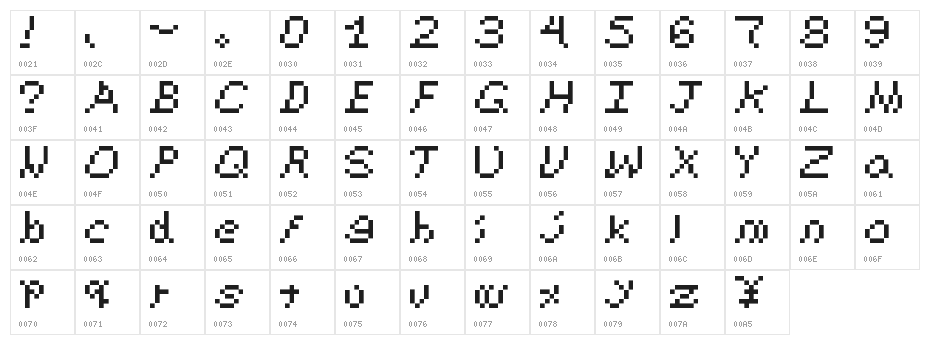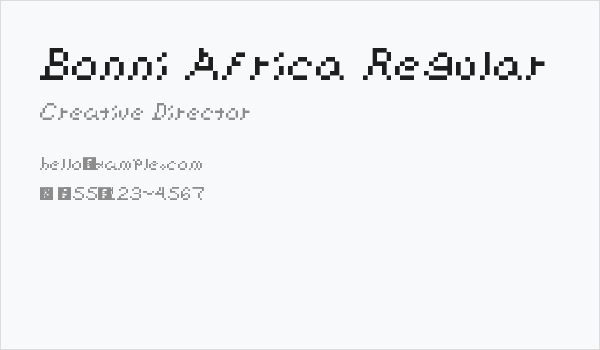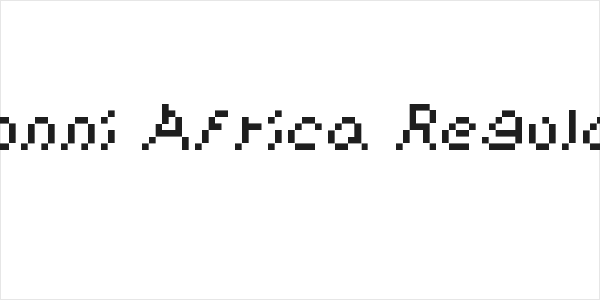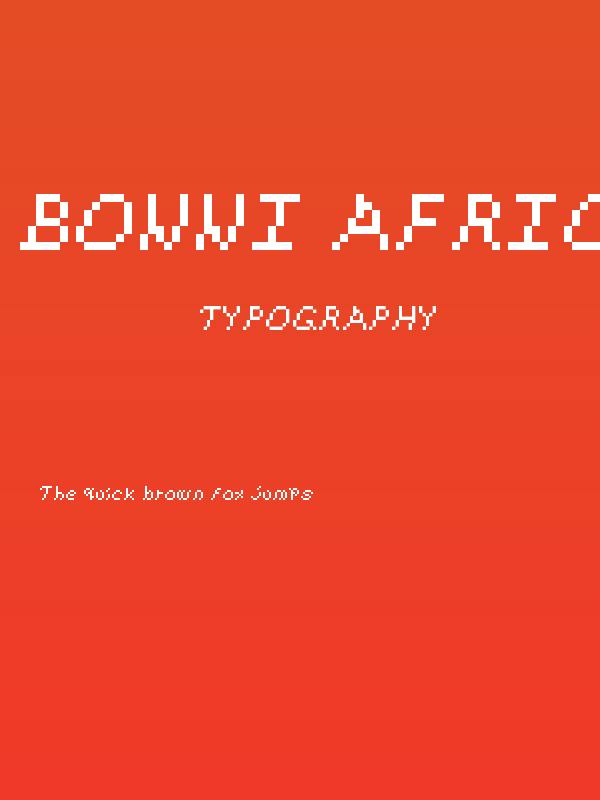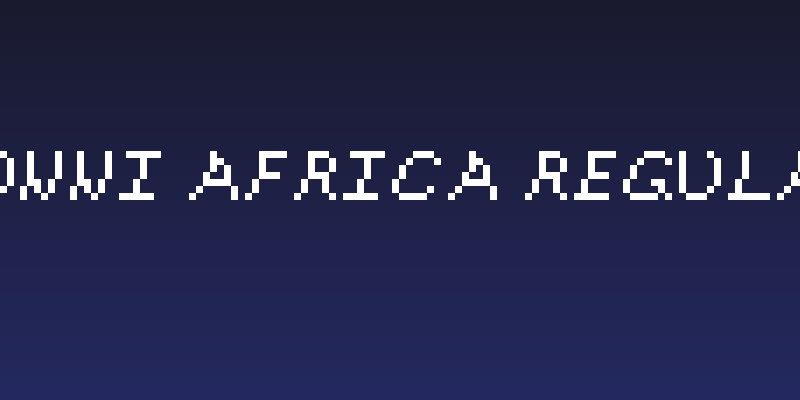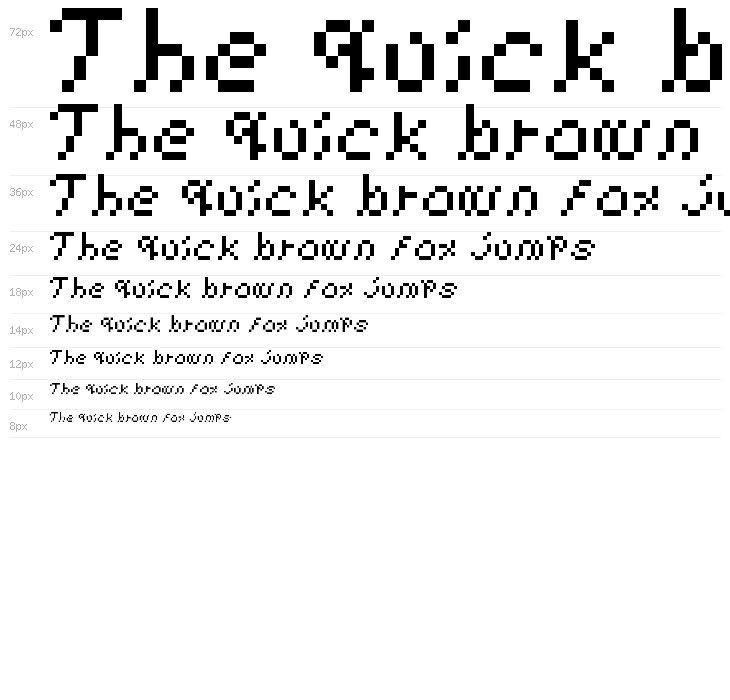
Bonni Africa Regular Font
Bonni Africa Regular Description
This font features a pixelated, blocky design reminiscent of early digital or video game aesthetics. Each character is constructed with a grid-like structure, giving it a retro and technological feel. The uppercase and lowercase letters maintain a consistent height, contributing to a uniform appearance. The numerals and special characters follow the same pixelated style, ensuring cohesion across all elements. This font's distinct style is ideal for projects that aim to evoke nostalgia or a digital theme.
| Overall Style | Retro, Digital |
| Use Case | Headlines, Logos, Digital Art |
| Proposed Projects | Ideal for video game design, digital art projects, retro-themed posters, and any creative work that requires a nostalgic or tech-inspired look. |